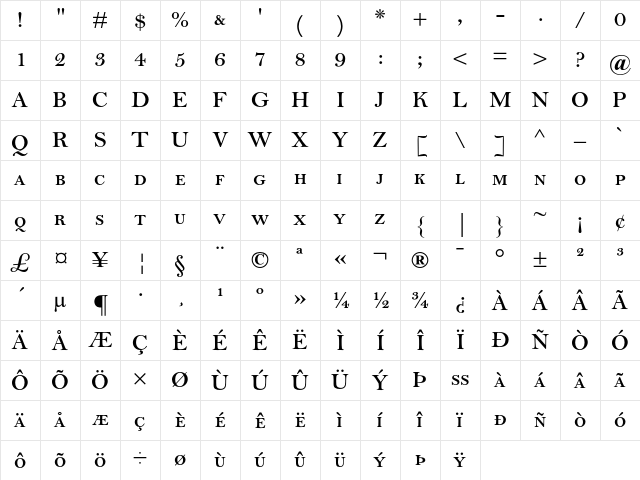
Bell MT Semi Bold Small Caps
Style: Semi Bold Small Caps
Complete Bell MT Semi Bold Small Caps glyph index. Displaying only characters natively supported by Bell MT Semi Bold Small Caps font.
Design Context for Bell MT
Bell MT is a composed and adaptable typeface that performs quietly and consistently across a wide range of design contexts. Its bold stroke weight gives it real presence on the page.